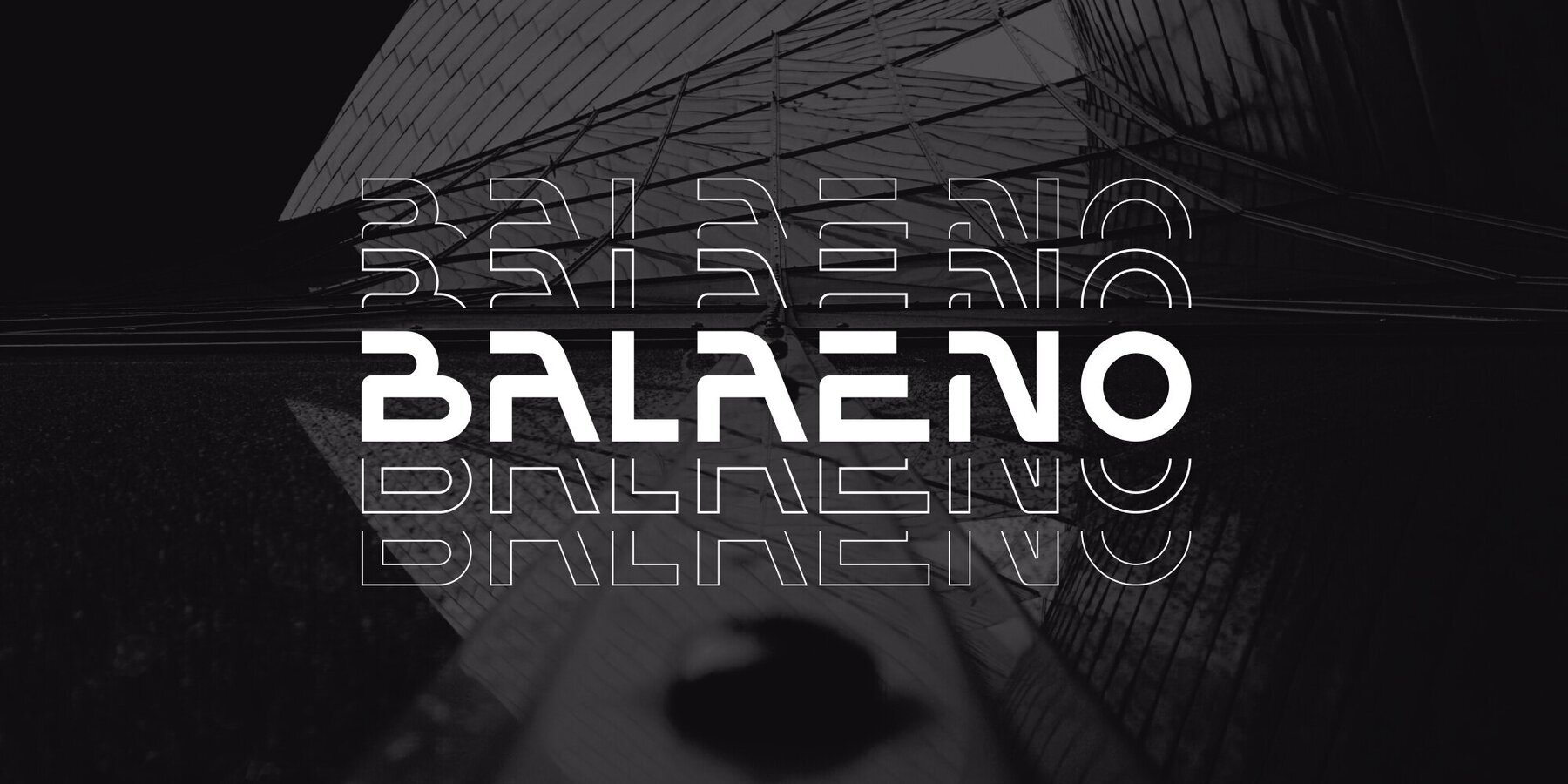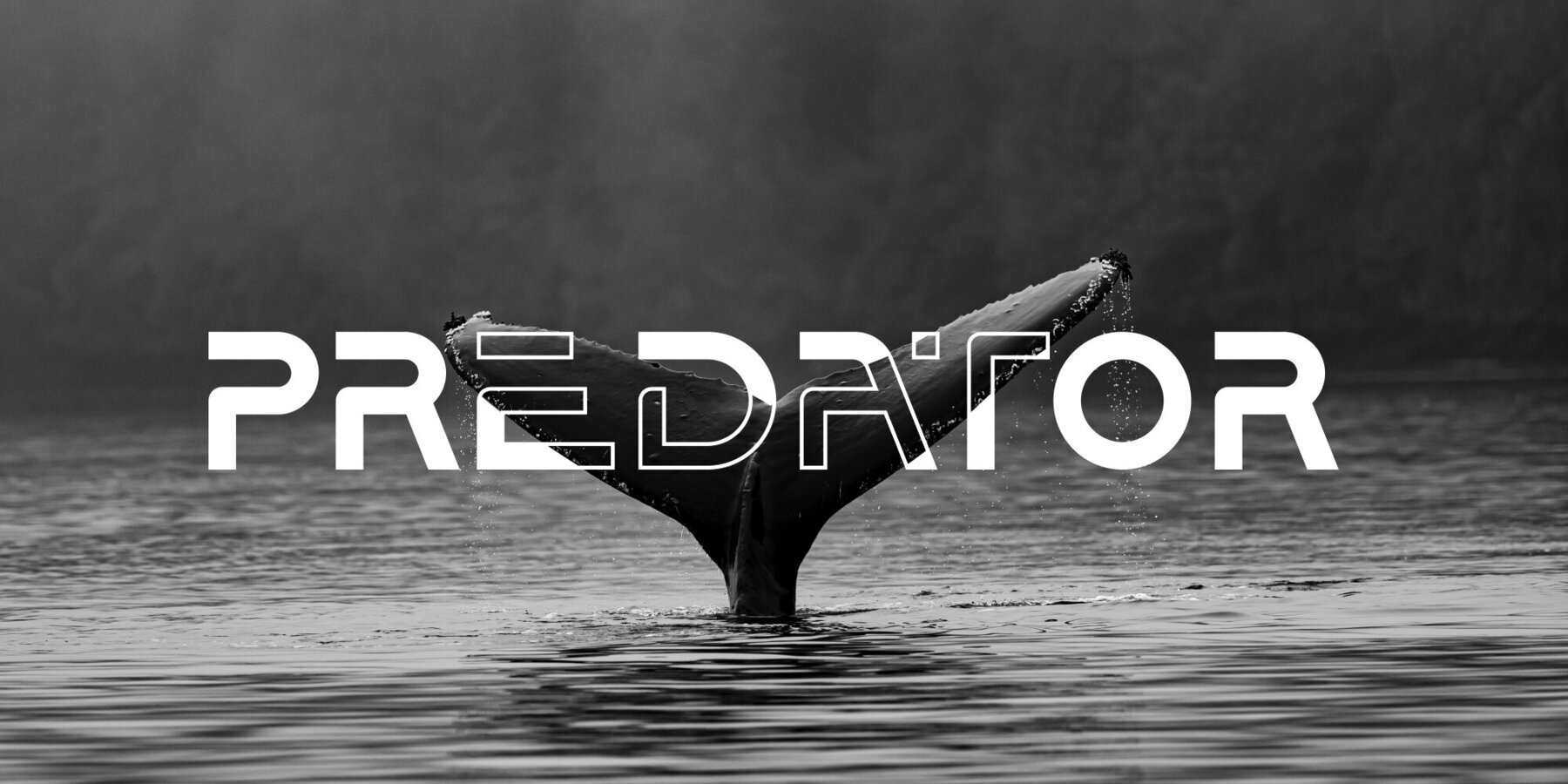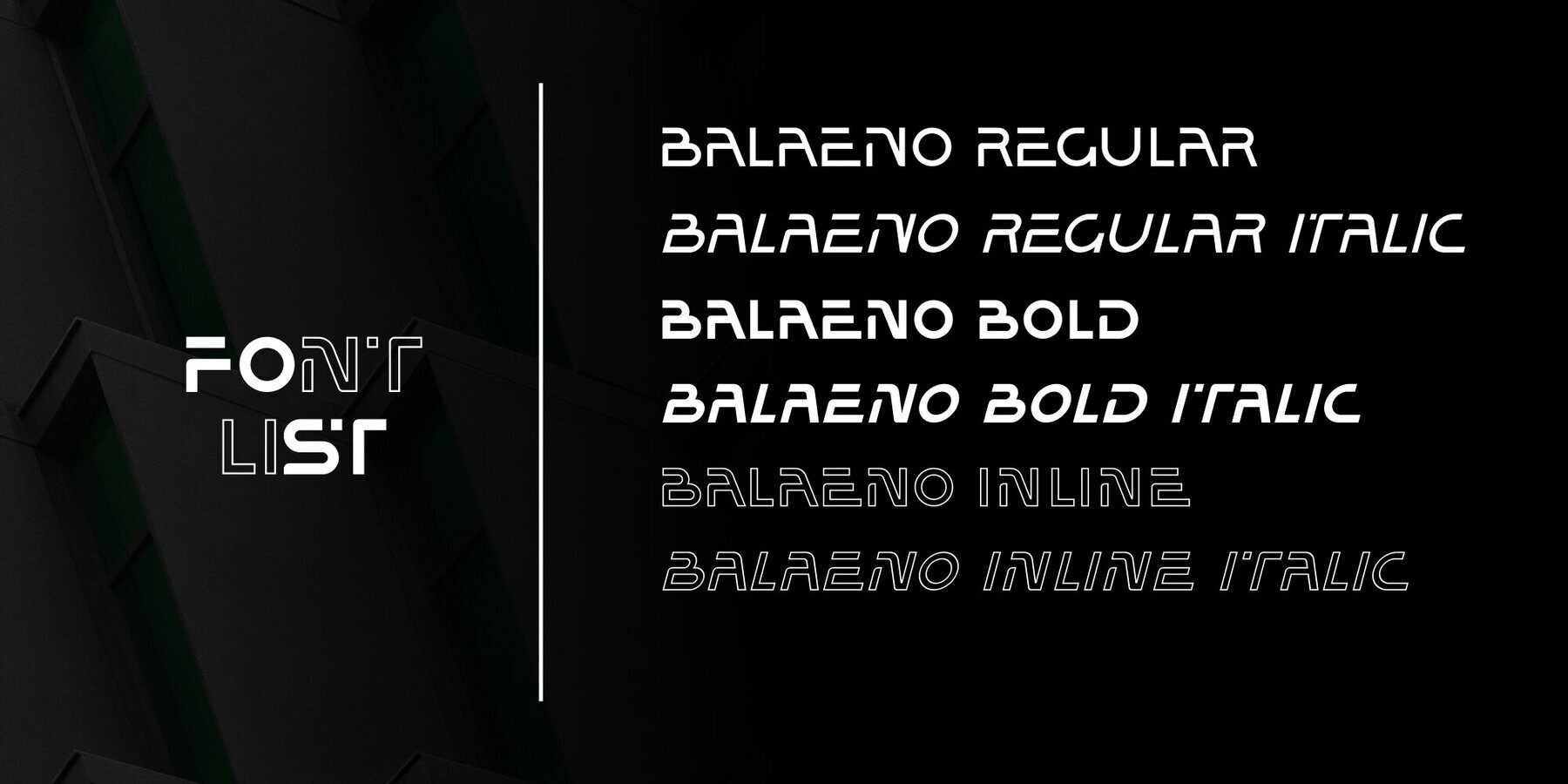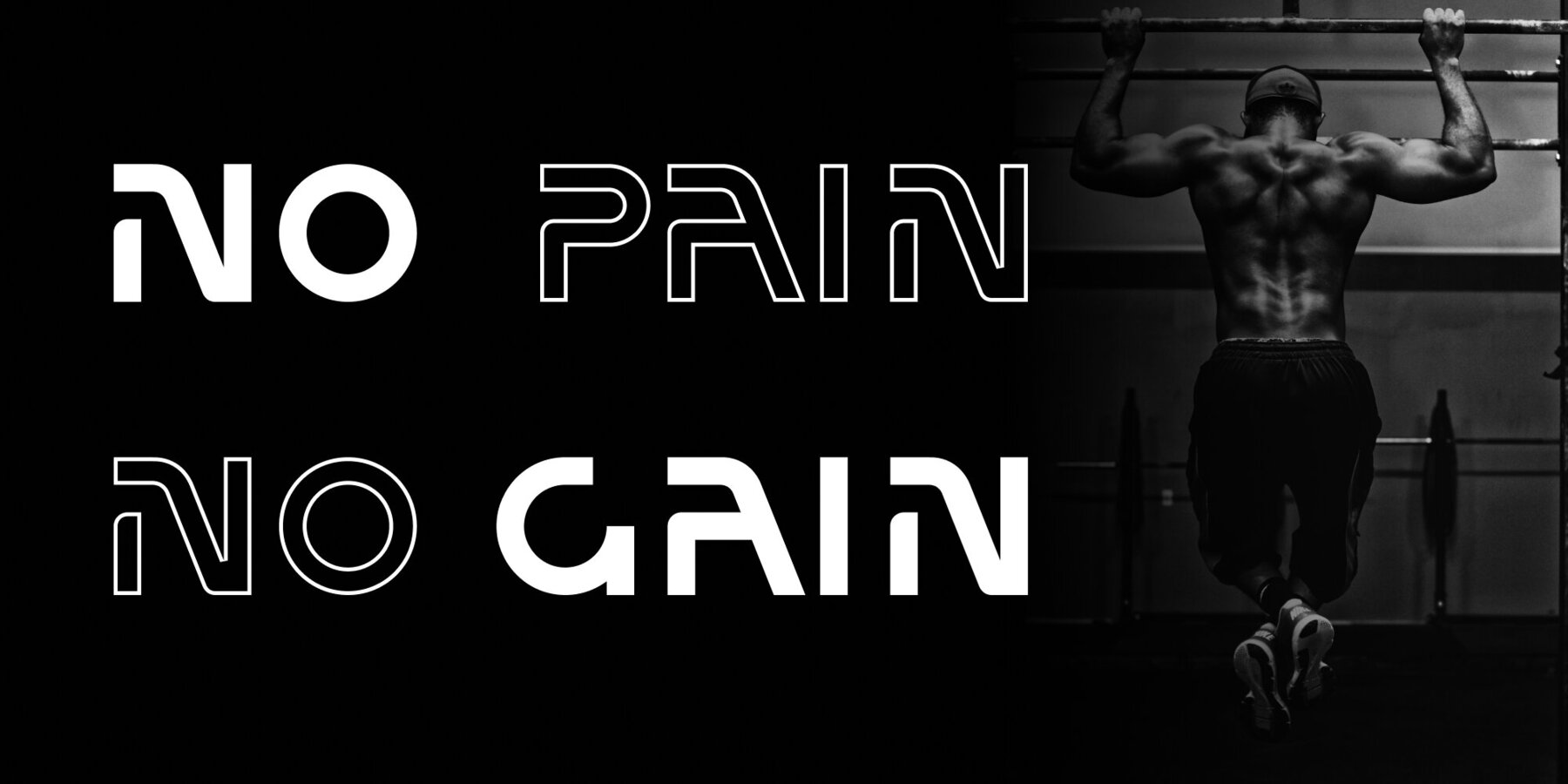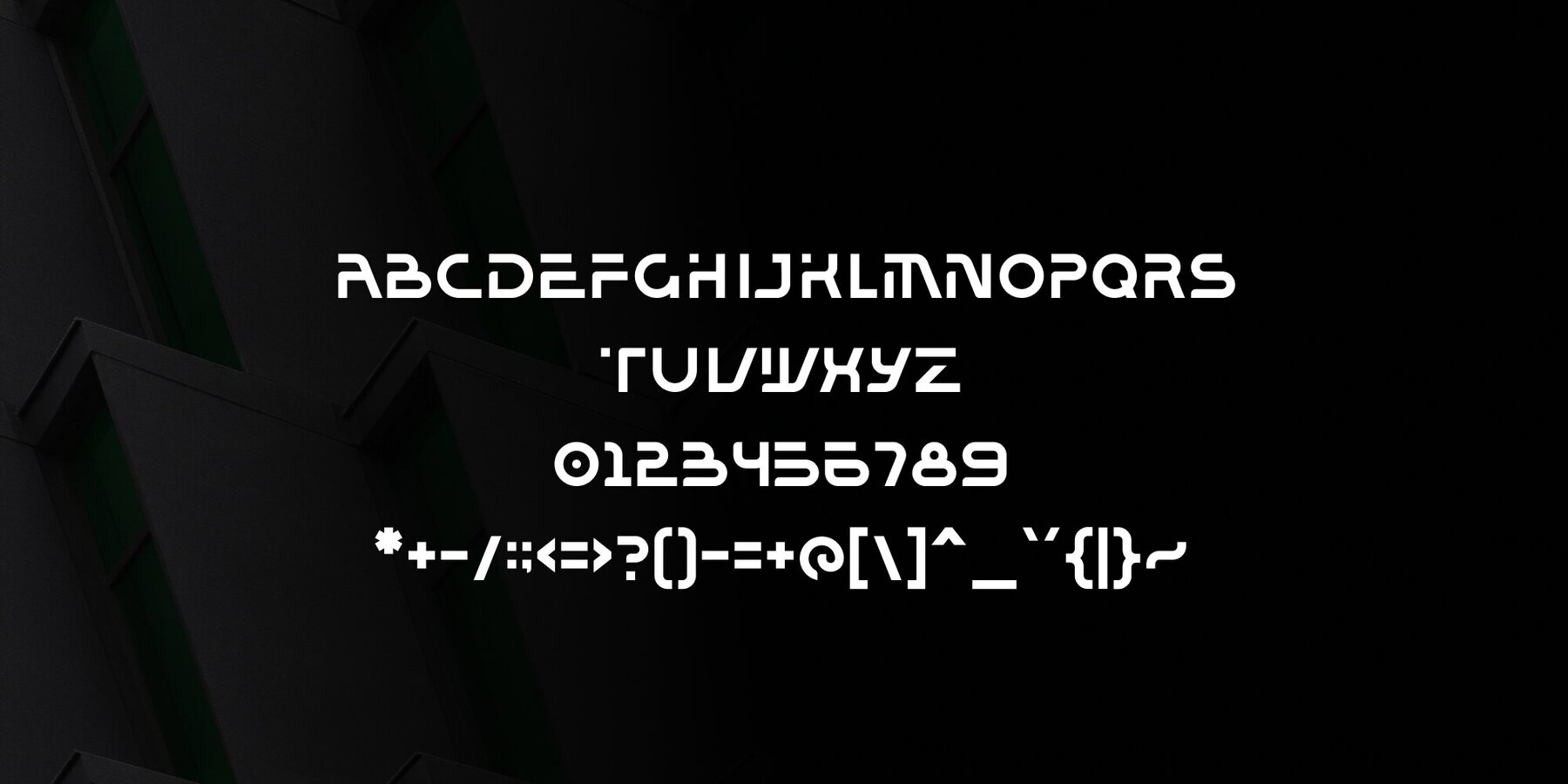
Balaeno seamlessly combines modern sophistication, technological innovation, sporting spirit, and timeless elegance into one captivating font. With its sleek design and sharp lines, the font not only reflects contemporary trends but also exudes cutting-edge technological vibes suitable for a range of design projects.